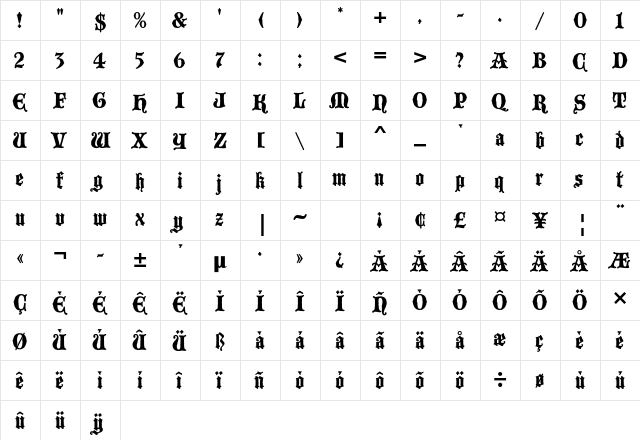
Blackmoor Std Regular
| Designer | David Quay |
Design Context for Blackmoor Std Typeface
Blackmoor Std is a composed and adaptable typeface that performs quietly and consistently across a wide range of design contexts.